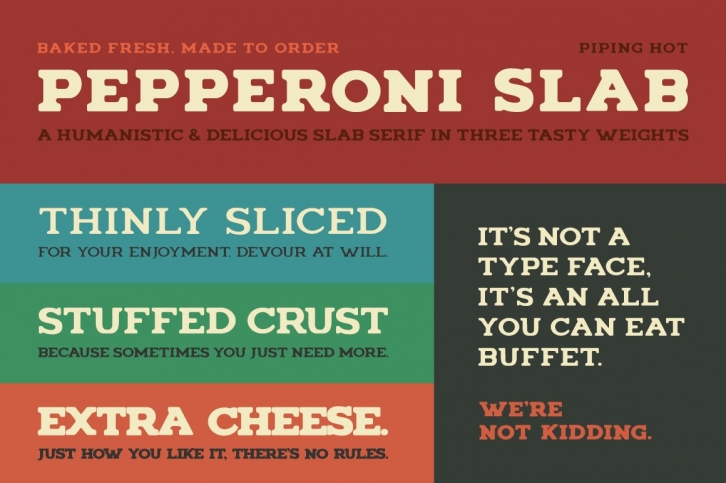
Pepperoni Slab is a Humanistic & Delicious Slab Serif in 3 Tasty Weights.
Built on the framework of age old hand painted signage, and influenced by my undying love for pizza. This font is sure to serve you well for years to come.
It's not a typeface, it's an all you can eat buffet.